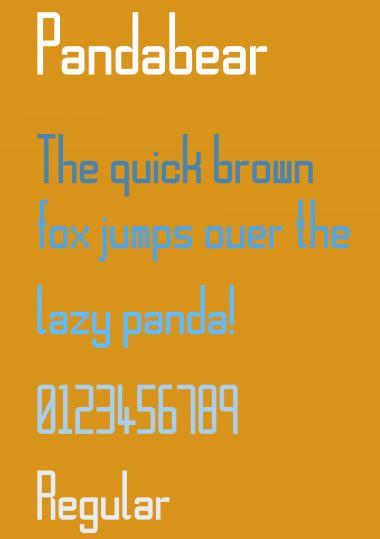
• I wanted to make a relatively simple and slim looking font and that is the result.. But V,v and k doesn't really satisfy me.. If you have suggestions, feel free to write it in the comments
Well the k would work better if you shifted the crossbar down so it aligns with the gap between the terminals of the c. I'm not sure the "thickened" join between the two legs really works... the only other glyph to feature it is the x, so there's not enough of it to be a design feature, and it tends to look like a mistake rather than an intention. Your u/c X works, an intriguing idea.
I like the treatment of the l/c f... I wonder if you should play with some of the other terminals like that?
VvWw are difficult constructions in Fontstruct. You wouldn't be the first to be unhappy with them!
Thanks intaglio! I followed your suggestion and shifted the crossbar of the k down. Furthermore I changed some bricks of the k and x, so that it fits (hopefully) better with the other characters.
I made the sample again with the new version.
I love this! Maybe a wider version as well?
I'm glad you like it, emepar7! Maybe I will do a wider version, when I find the time to do that.